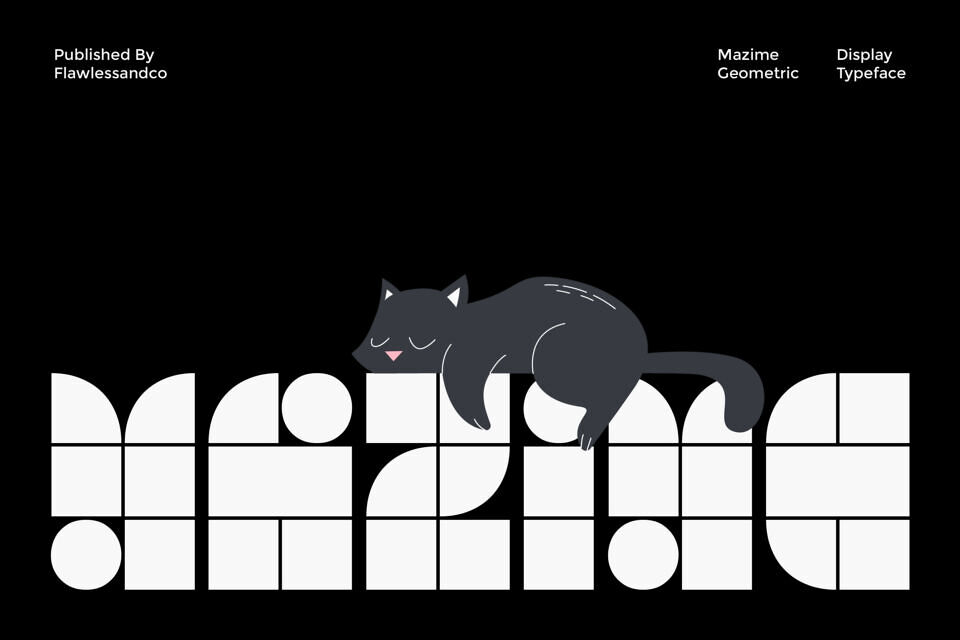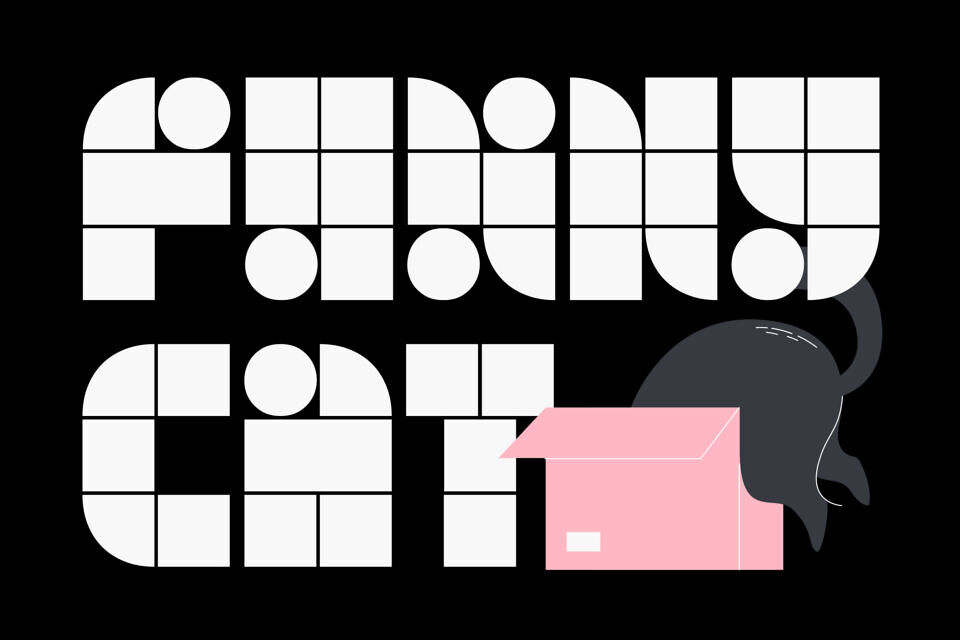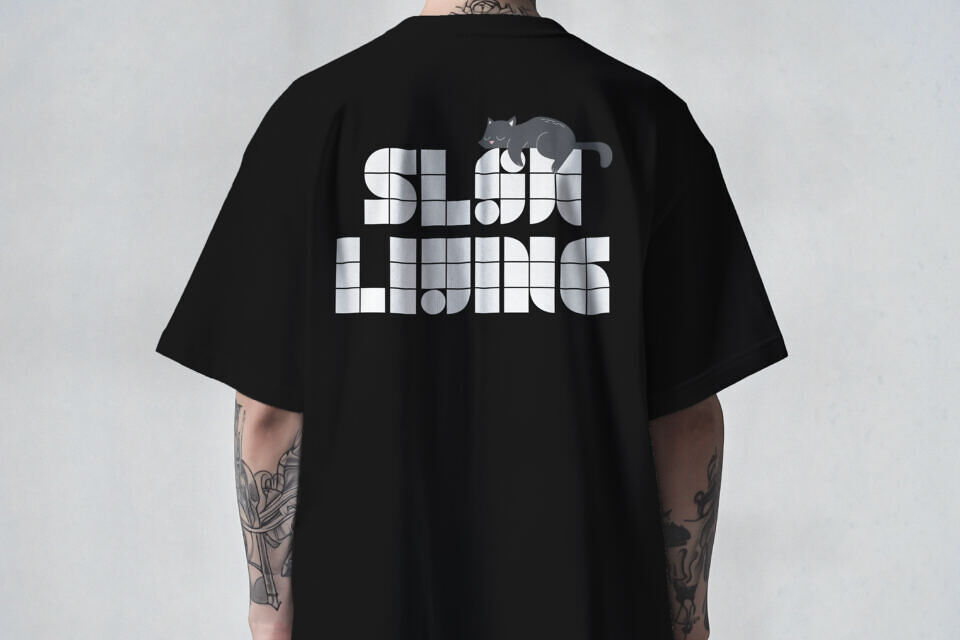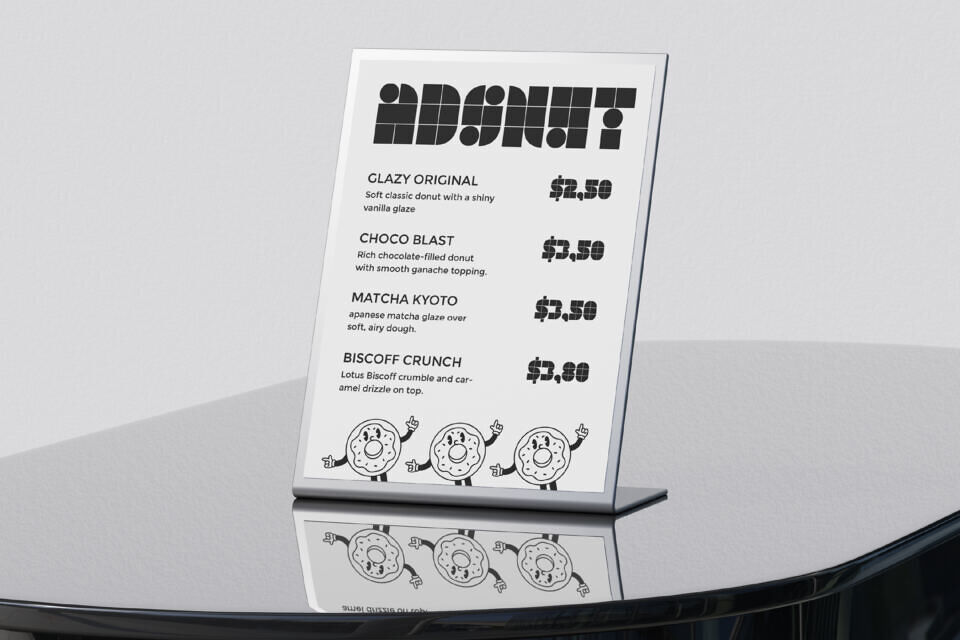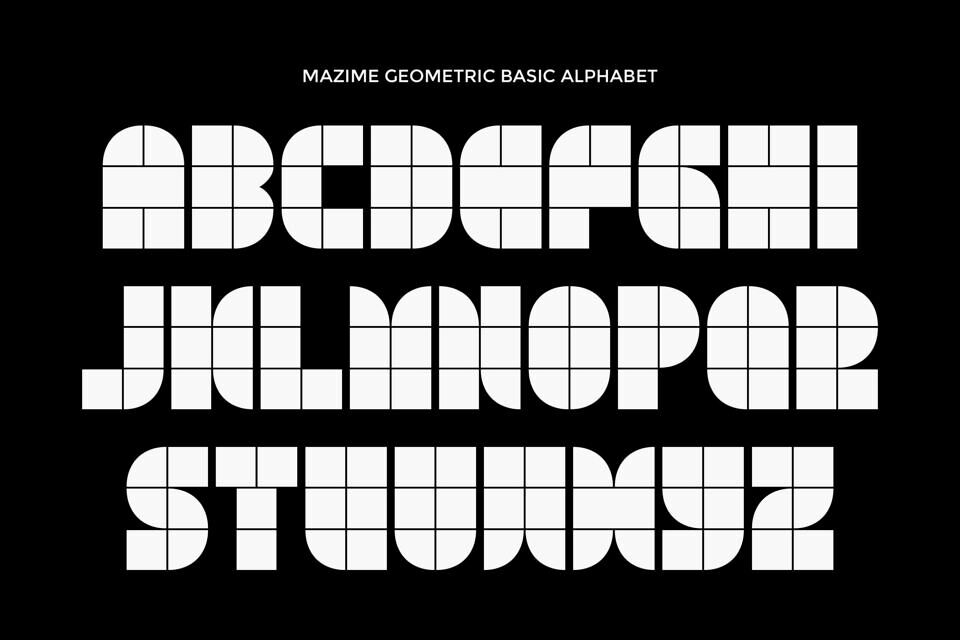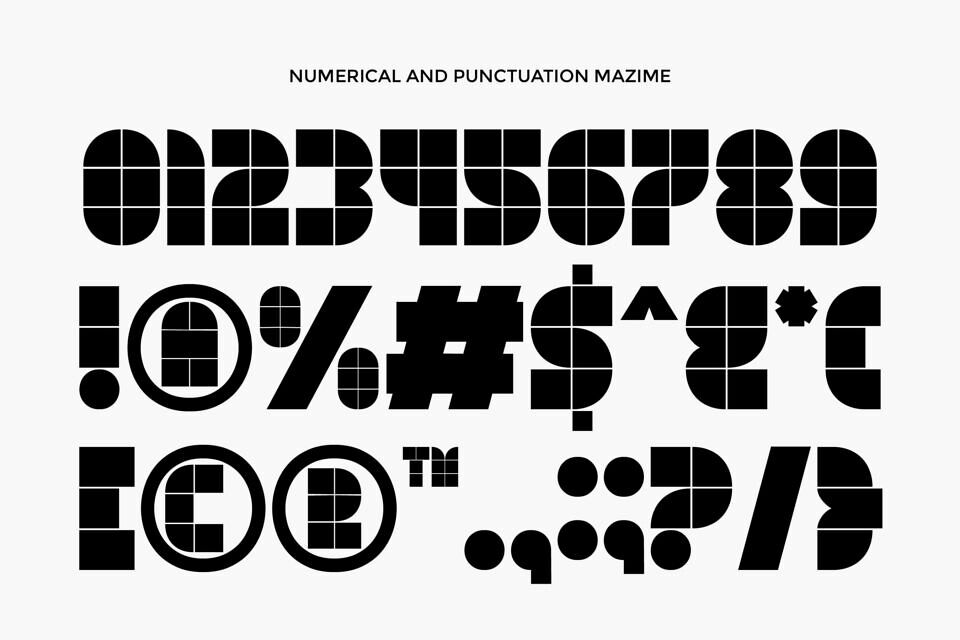
Mazime Font
Mazime is a bold geometric display font that stands out with its clean shapes and modern aesthetic. Inspired by minimalism and modular design, Mazime perfectly balances playfulness and precision — making it ideal for creative projects that demand a unique, contemporary touch.